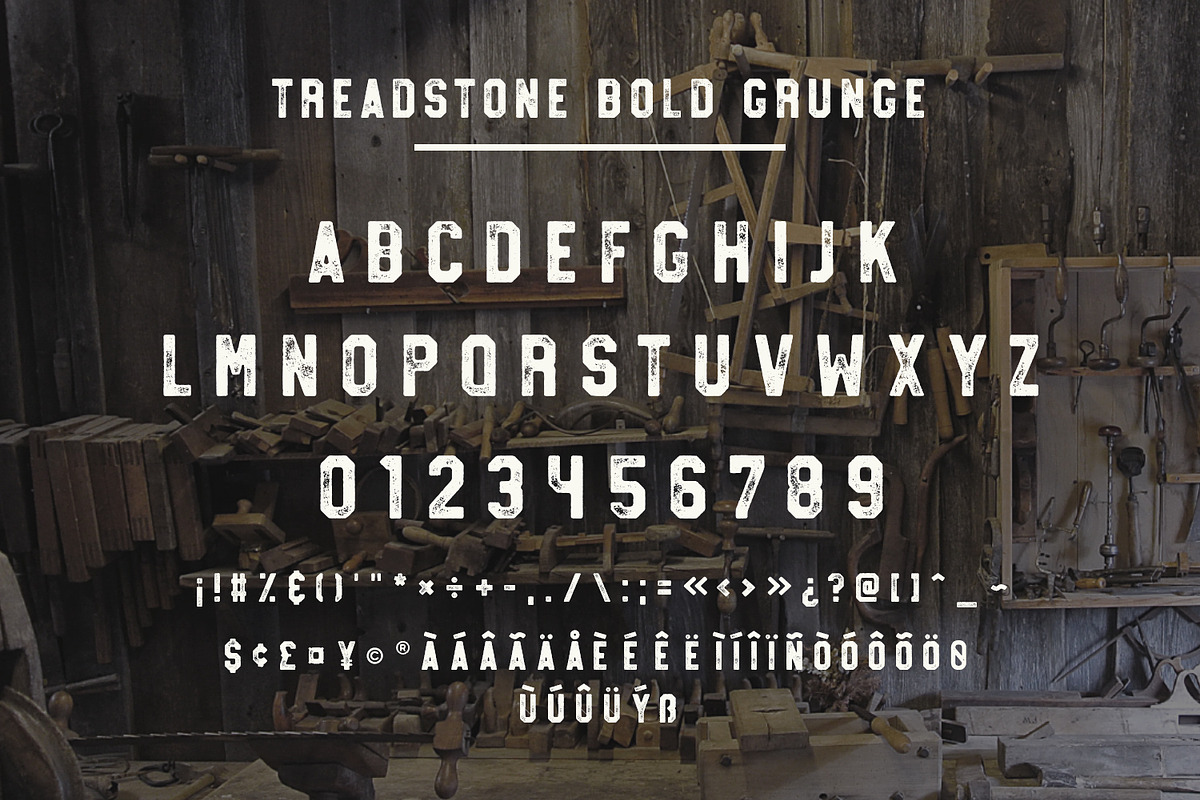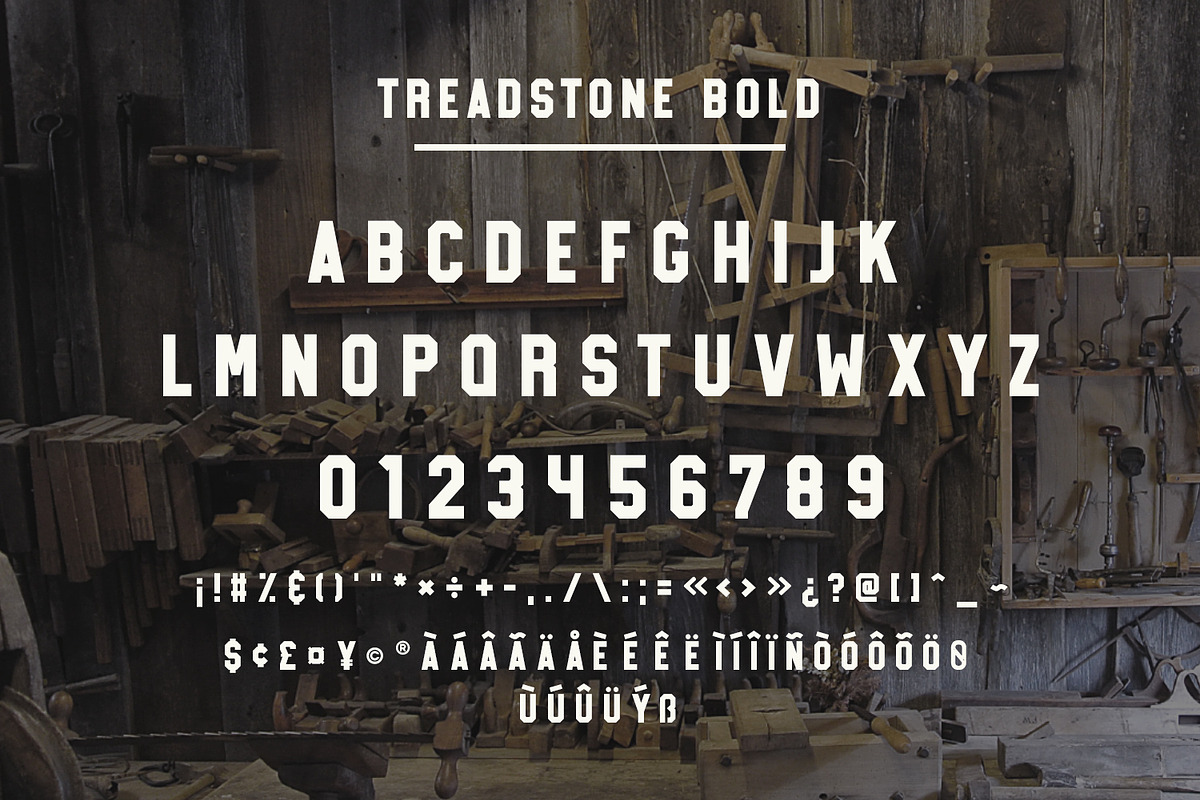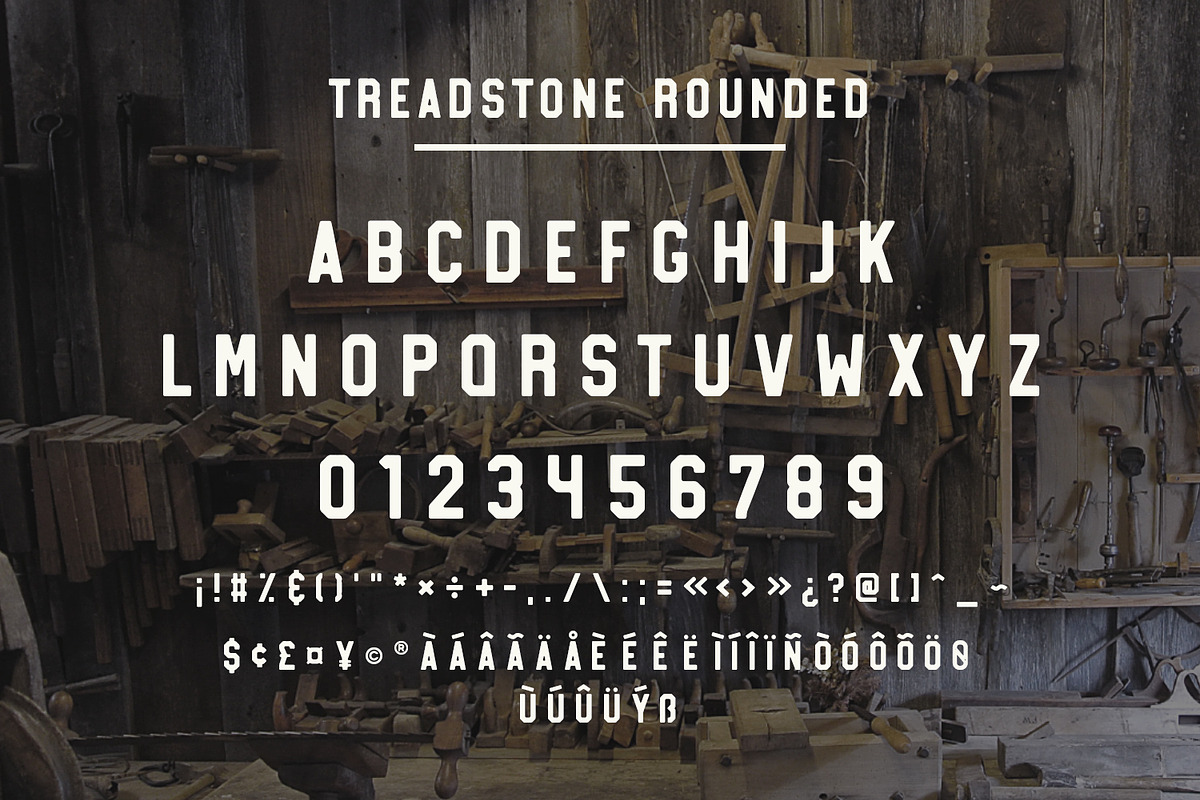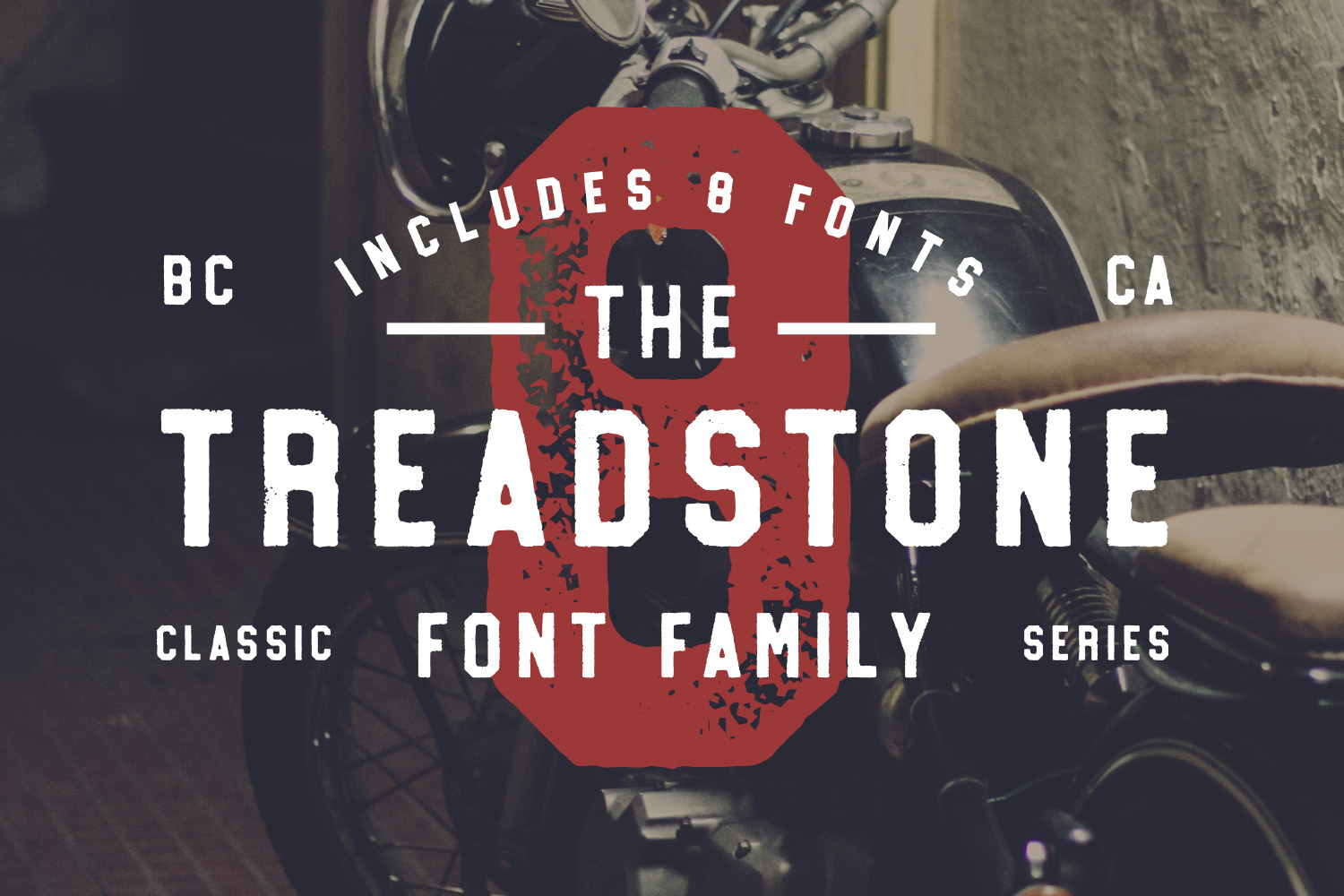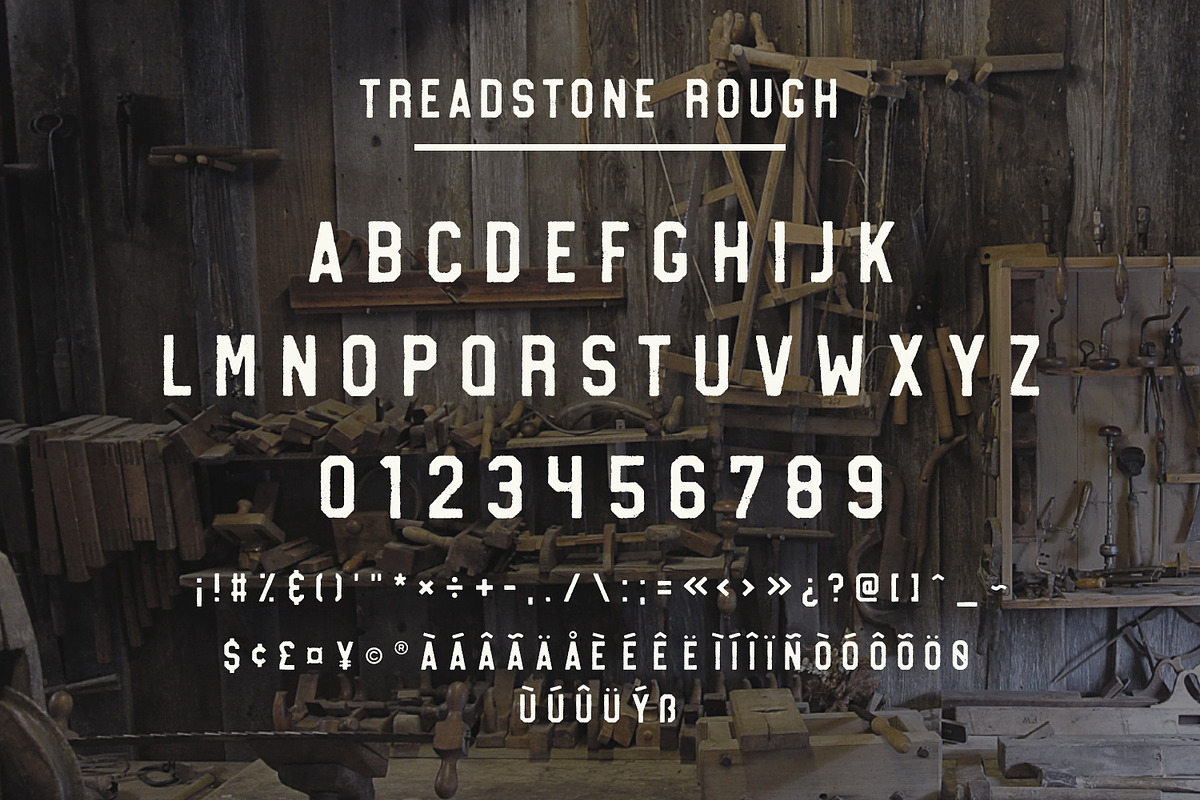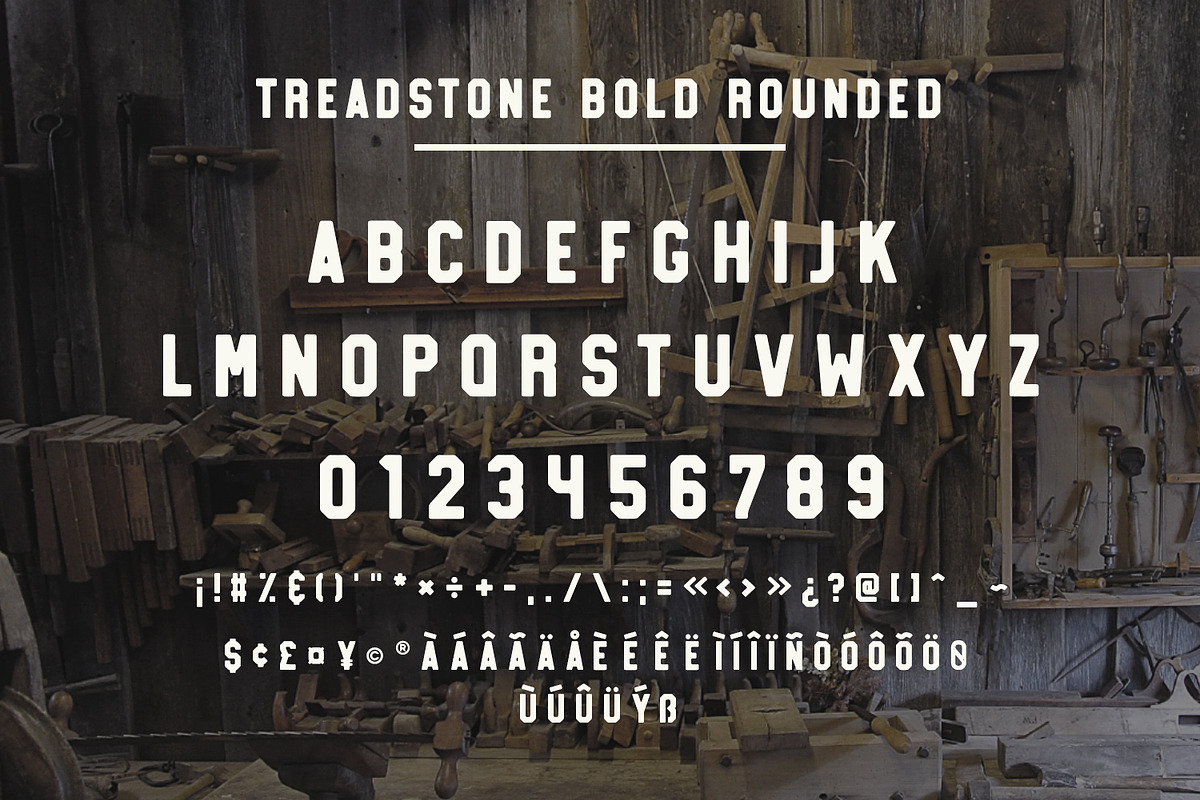
Treadstone - 8 Font Family
Treadstone is a family of EIGHT fonts that give a modern twist on a classic look. This font family includes versions with rounded edges, rough edges and grunge effects, each of which has its own character and charm. Treadstone works great for headlines, titles and logos.
Here's everything you get with the Treadstone Font Family:
Treadstone Regular - This is the classic version. Regular has sharp edges and perfect weighting and spacing. Great for simple, timeless branding
Treadstone Rounded - This version is slightly thicker, which imperfect rounded edges. This version is a little easier on the eyes and feels a little more organic without feeling out of place when stacked with sharp edges fonts.
Treadstone Rough - The rough version has a lot of character and detail. It is slightly thinner than the regular version. Great for headlines and vintage designs.
Treadstone Grunge - For those who are really looking for grime and grit, we've added a grunge version. Great for that stamped letterpress look.
Treadstone Bold - This version is a little louder than the classic regular. It's great for headers, especially paired with 'regular' as a subheader choice.
Treadstone Bold Rounded - The thickest of the bunch. This is made to grab peoples attention without being too harsh.
Treadstone Bold Rough - Slightly thinner than Bold, the 'Bold Rough' version has a weighting that sits nicely between 'Bold' and 'Regular'. Its edges give it a bit of a letterpress feel. Great for vintage works and headlines.
Treadstone Bold Grunge - Loud and gritty! The Bold Grunge version has loads of detail.
Language Support - French, Spanish, English, Catalan, Galician, Basque, Portuguese, Italian, Albanian, Afrikaans, Dutch, German, Danish, Swedish, Norwegian, Finnish, Faroese, Icelandic, Irish and Scottish.